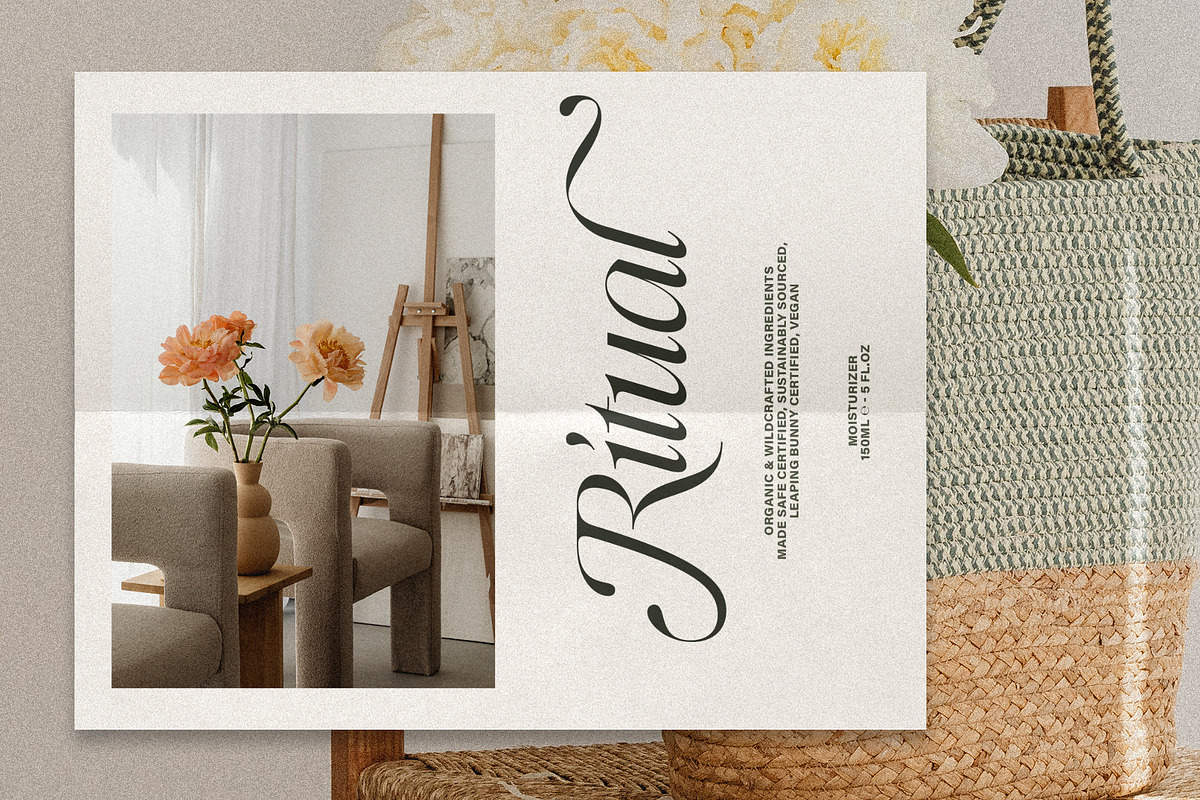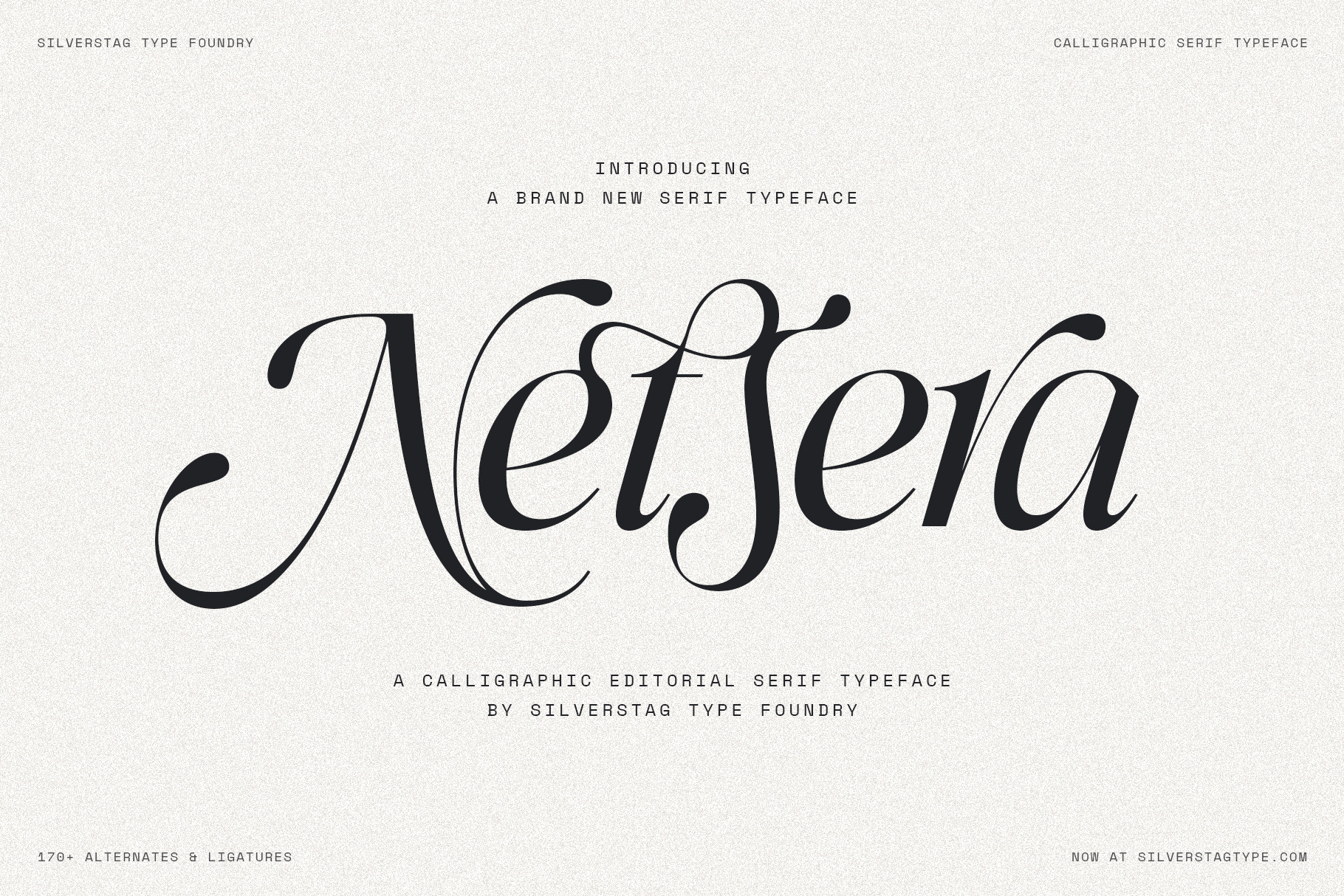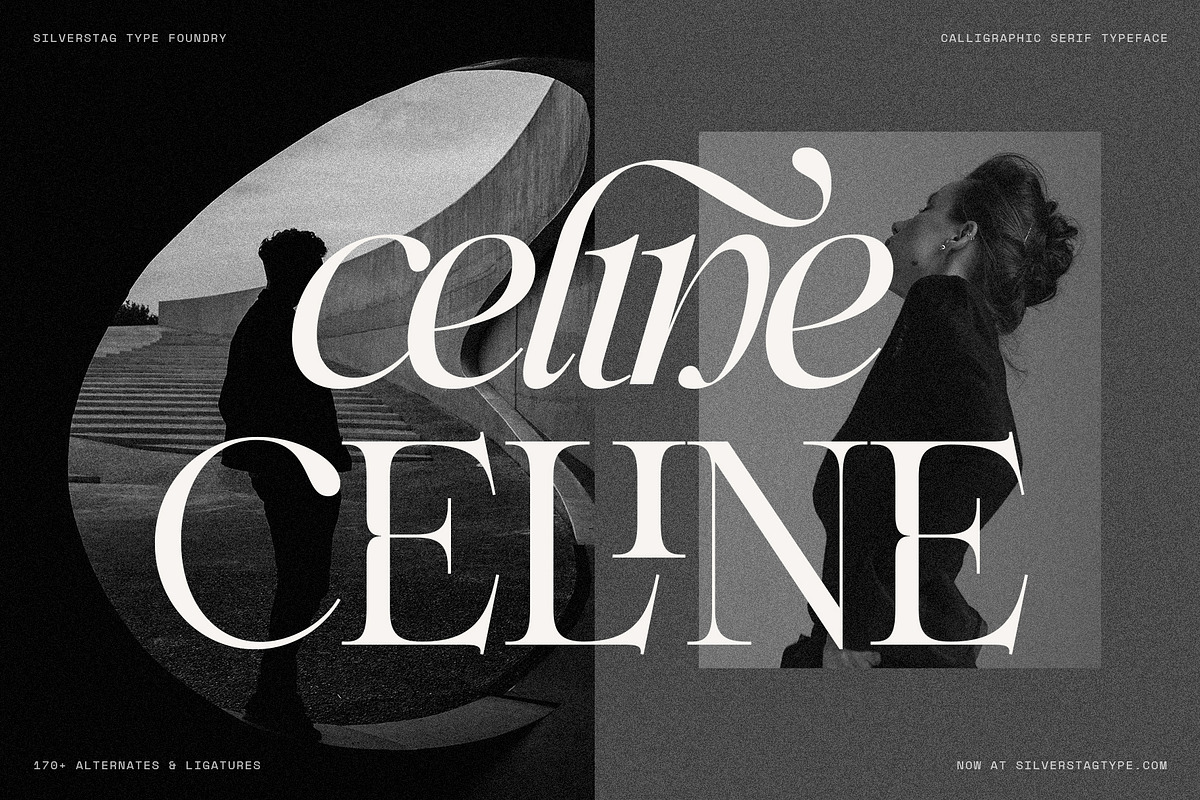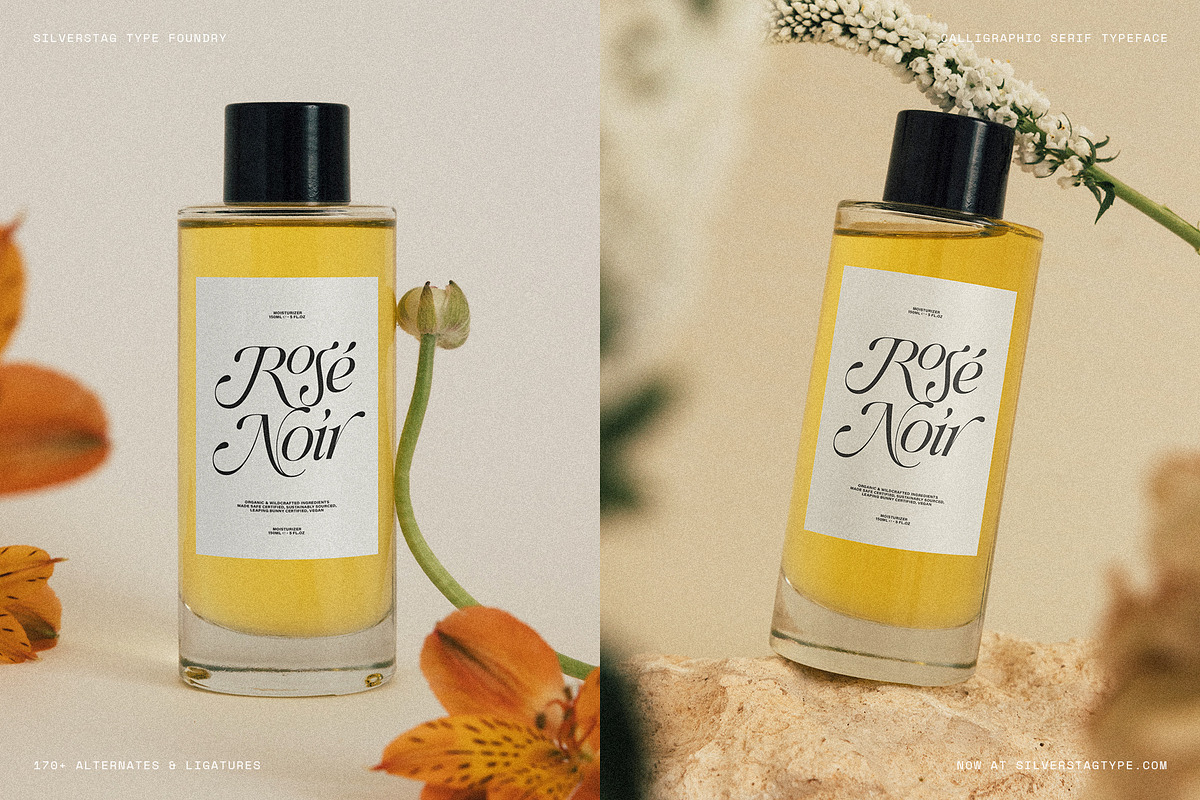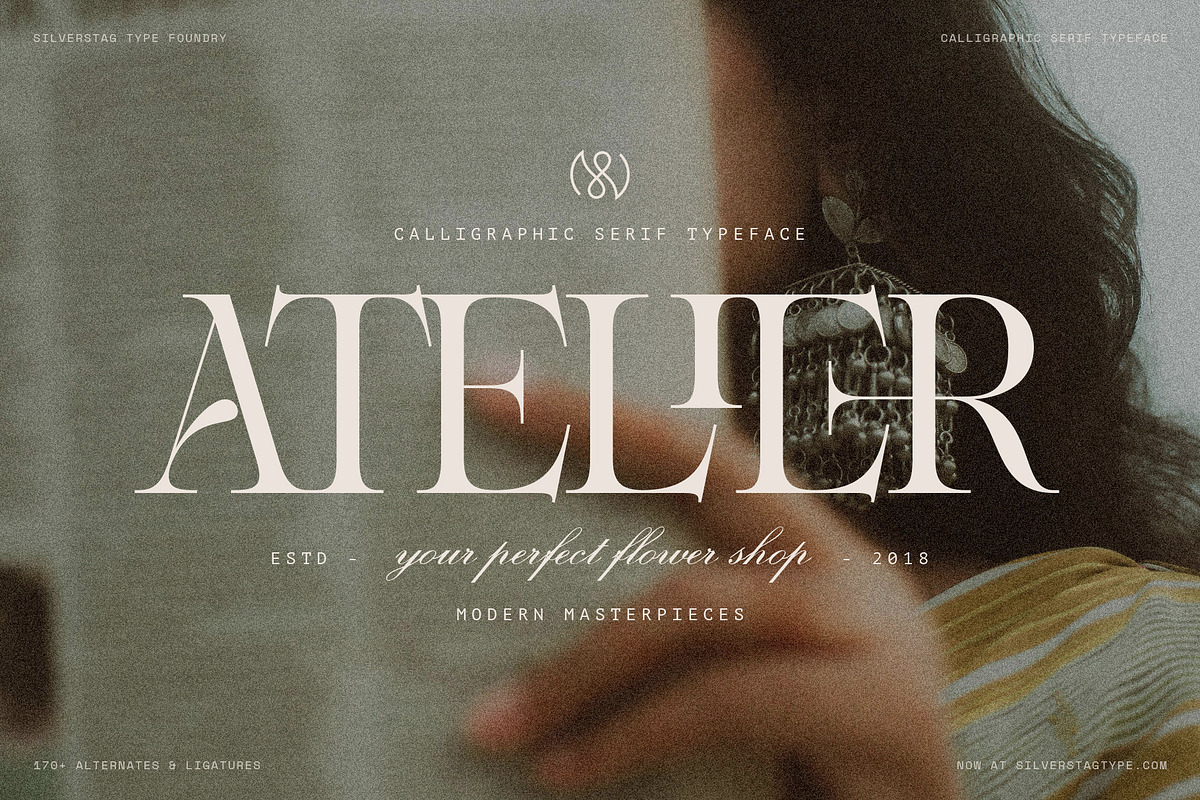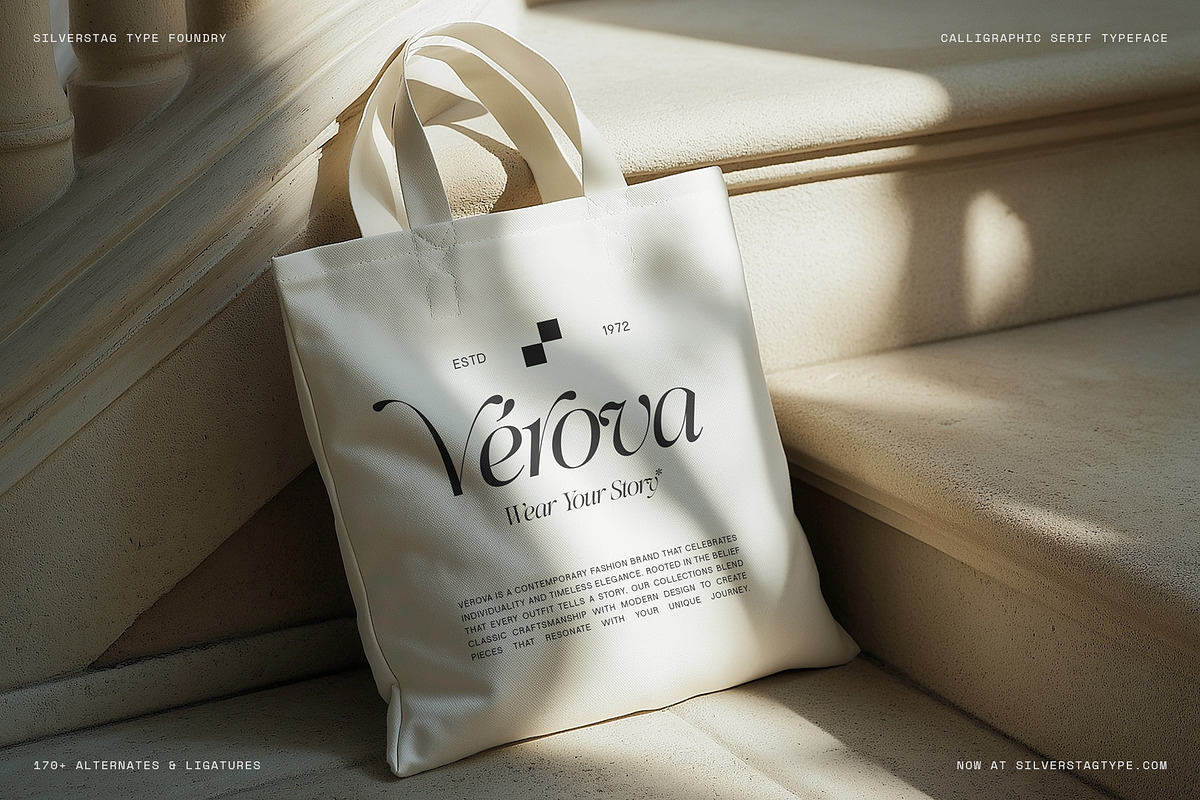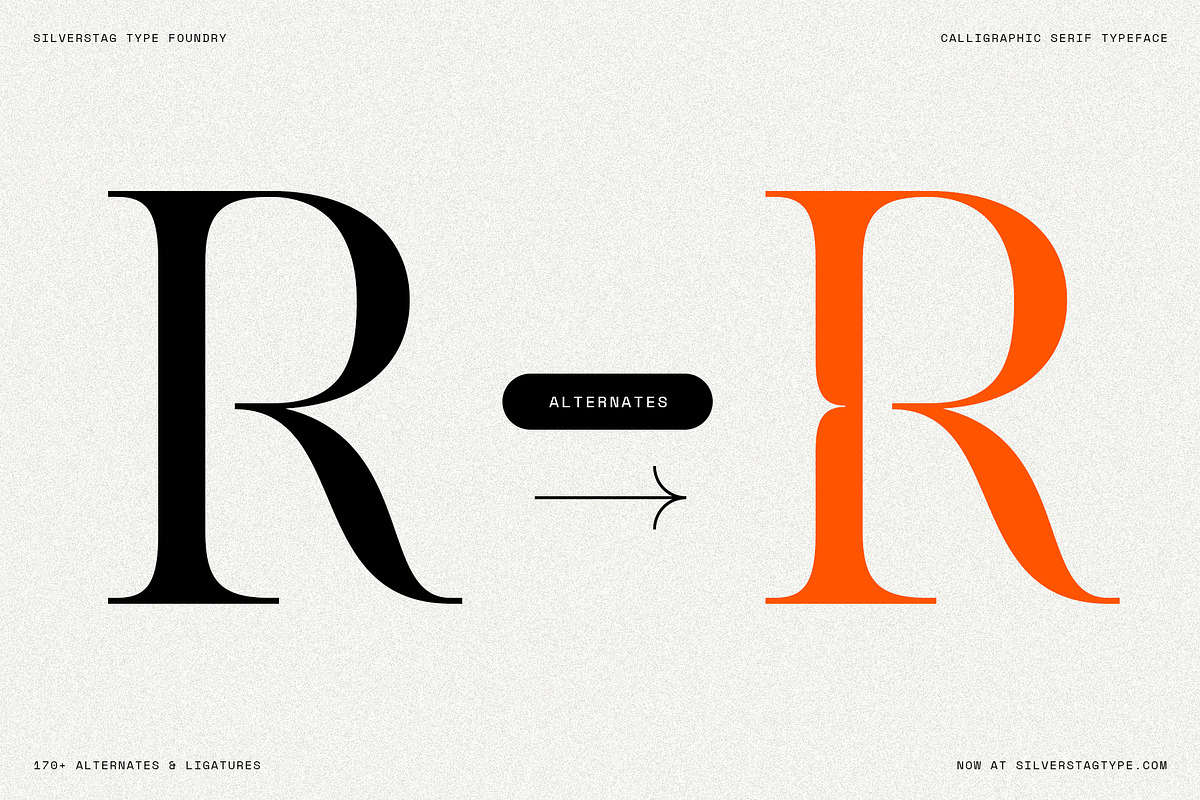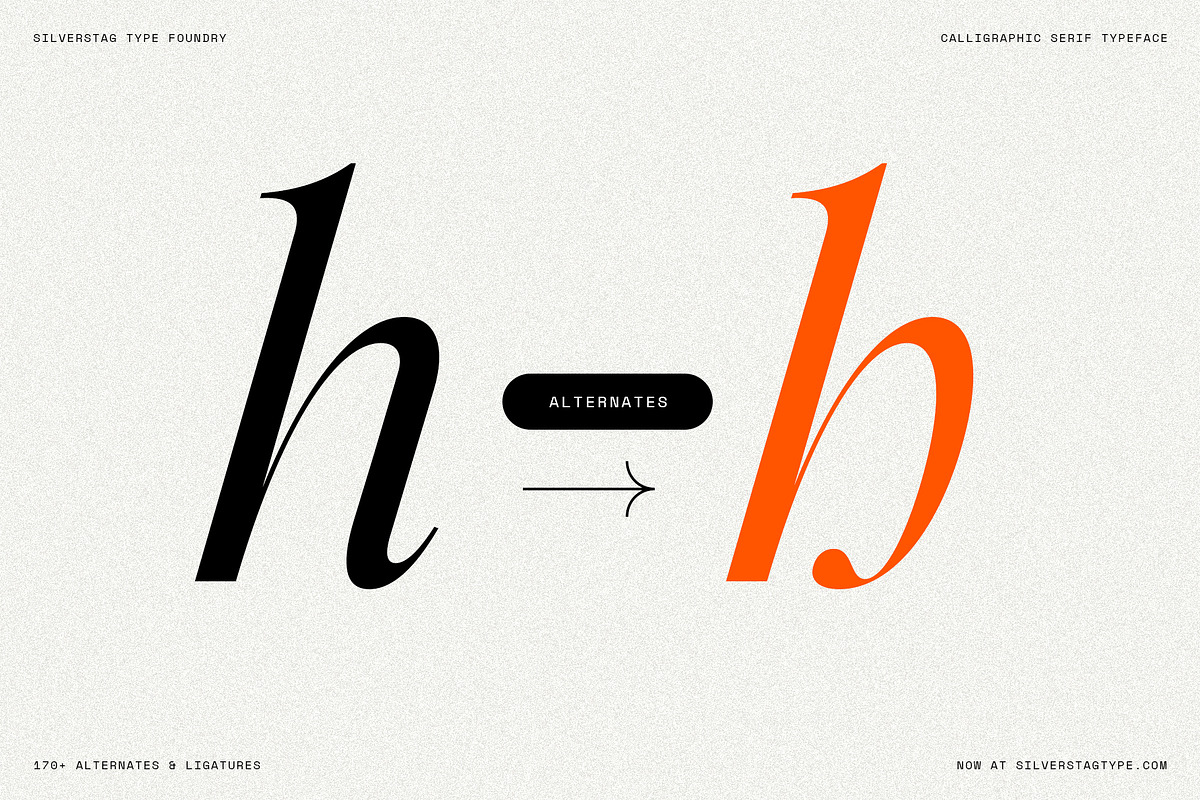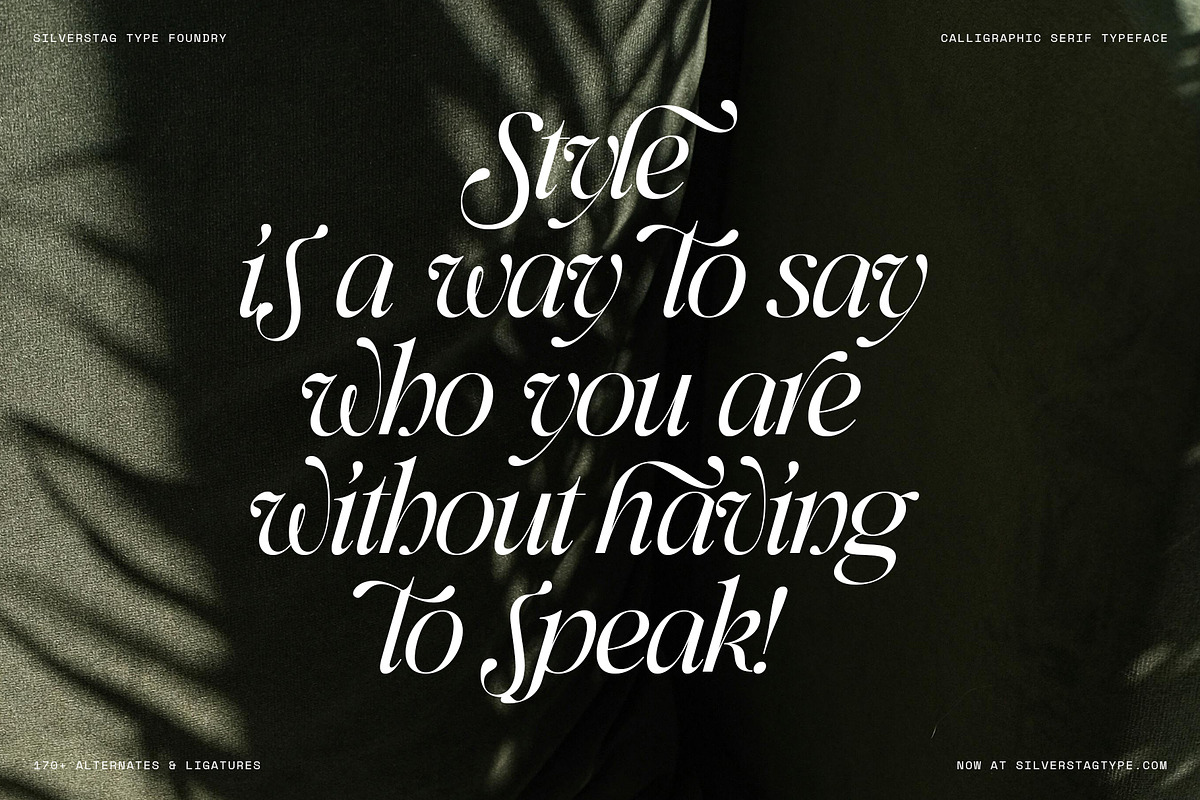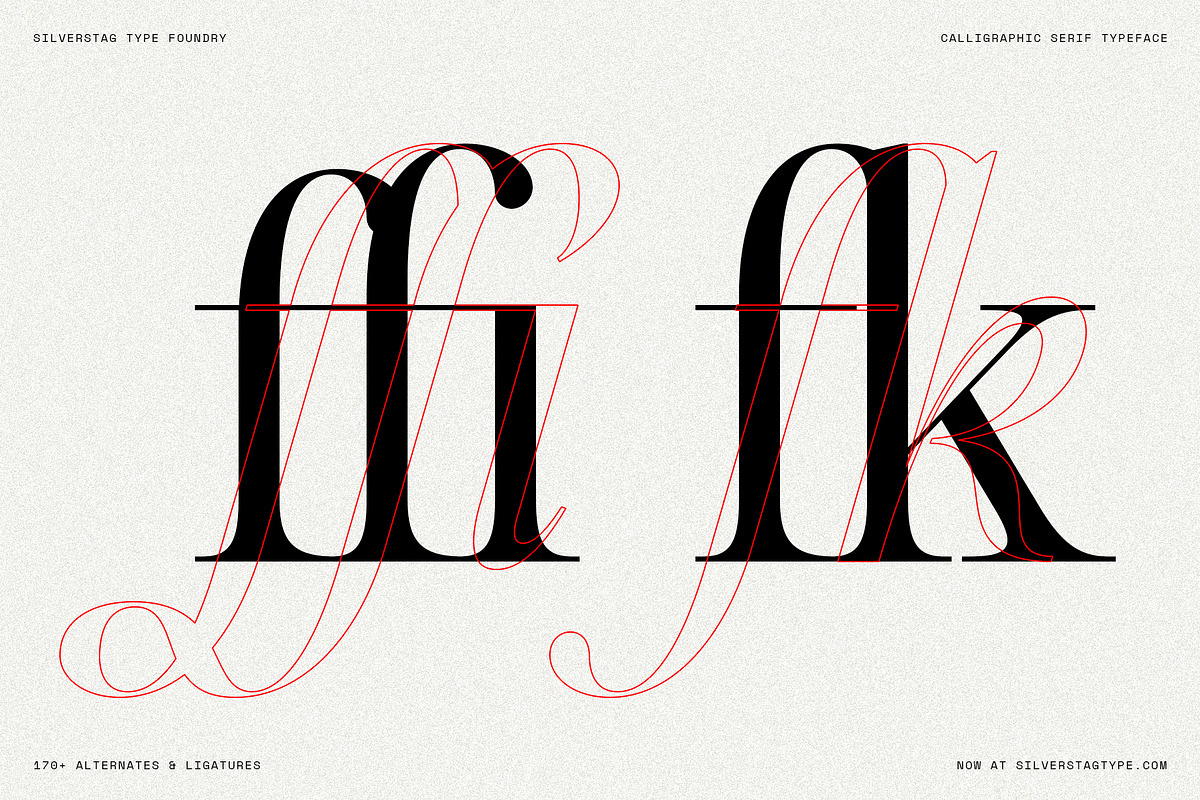
Netsera Calligraphic Serif Typeface
SLTF Netsera – Calligraphic Serif Typeface with Italic & 170+ Alternates
Elevate your work with SLTF Netsera – a beautifully expressive serif font that merges classical elegance with modern refinement. This high-impact typeface features over 900 characters, including 170+ carefully drawn ligatures and alternates, offering limitless creative flexibility.
Netsera is available in both Regular and Italic versions, each crafted with sweeping calligraphic strokes and refined detailing. The font is perfect for editorial layouts, fashion packaging, premium branding, and any project that needs to balance romance and structure.
With multilingual support for over 100 languages, full punctuation, numerals, and extensive OpenType features, SLTF Netsera is a versatile choice for designers looking to create bold and sophisticated visual identities.
Whether you’re working on luxury invitations, poetic headlines, or a refined logotype, Netsera delivers stunning results every time.